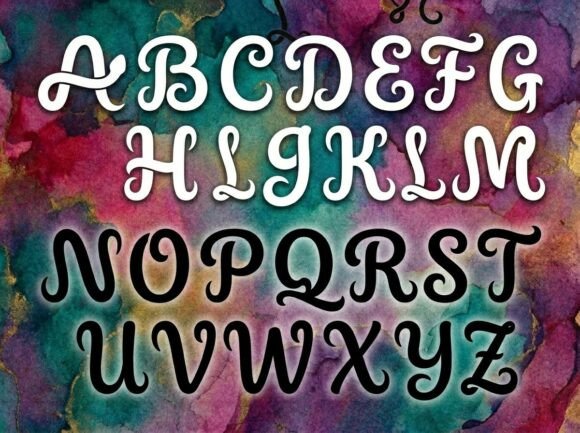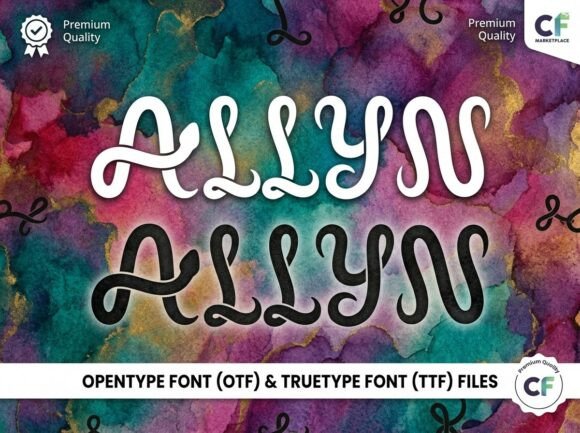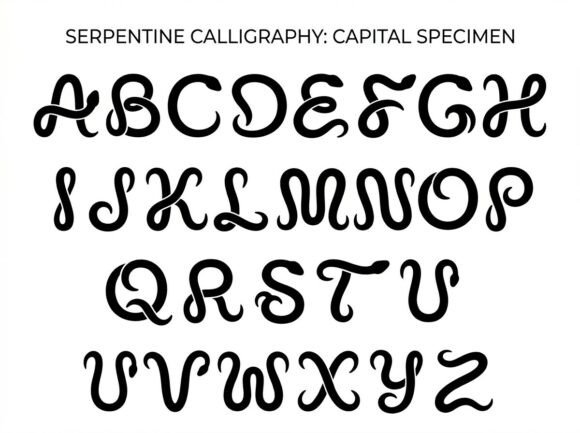
Introducing Allyn Font: A Stunning Decorative Display Font
Are you tired of using the same old fonts for your creative projects? Look no further than Allyn Font, a unique and artistic display font that’s sure to turn heads. Designed to be the center of attention, this font features a strong visual personality and versatile design that’s perfect for creators who want to break away from the ordinary.
What Makes Allyn Font Special?
Allyn Font is a decorative display font that’s specifically designed for high-impact headlines, logos, and decorative initials. With its unique artistic elements and strong visual personality, this font is perfect for creators who want to make a statement. Whether you’re working on a bold headline, artistic logo, or creative packaging, Allyn Font is the perfect choice.
Key Features of Allyn Font
- Unique Artistic Elements: Allyn Font features unique artistic elements that set it apart from other fonts. Each letter is a work of art, making it perfect for decorative initials and high-impact headlines.
- Strong Visual Personality: This font has a strong visual personality that’s sure to grab attention. Whether you’re using it for a headline, logo, or packaging, Allyn Font is sure to make an impact.
- Versatile Design: Allyn Font is versatile enough for use in a variety of creative projects, from bold headlines and artistic logos to creative packaging.
- Professional and Polished Finish: Despite its decorative nature, Allyn Font maintains a professional and polished finish that’s perfect for use in a variety of applications.
⚠️ IMPORTANT NOTE BEFORE PURCHASE: Allyn Font is an ALL-CAPS (Uppercase Only) display typeface. It does not include lowercase letters. It is specifically designed for high-impact headlines, logos, and decorative initials where every letter is a work of art.
Why Choose Allyn Font?
There are many reasons why Allyn Font is the perfect choice for designers and crafters. Here are just a few:
- Stand Out from the Crowd: With Allyn Font, you can create unique and eye-catching designs that are sure to stand out from the crowd.
- Perfect for Creative Projects: Whether you’re working on a bold headline, artistic logo, or creative packaging, Allyn Font is the perfect choice.
Tips for Using Allyn Font
Here are a few tips for using Allyn Font in your creative projects:
- Use it for Headlines: Allyn Font is perfect for use in bold headlines and titles.
- Create Unique Logos: With its unique artistic elements, Allyn Font is perfect for creating artistic logos and branding materials.
- Add a Personal Touch: Use Allyn Font to add a personal touch to your creative projects and make them stand out.
Allyn Font is a stunning decorative display font that’s perfect for creators who want to break away from the ordinary. With its unique artistic elements, strong visual personality, and versatile design, this font is sure to make an impact. Whether you’re working on a bold headline, artistic logo, or creative packaging, Allyn Font is the perfect choice. So why wait? Get Allyn Font today and start creating unique and eye-catching designs that are sure to turn heads!